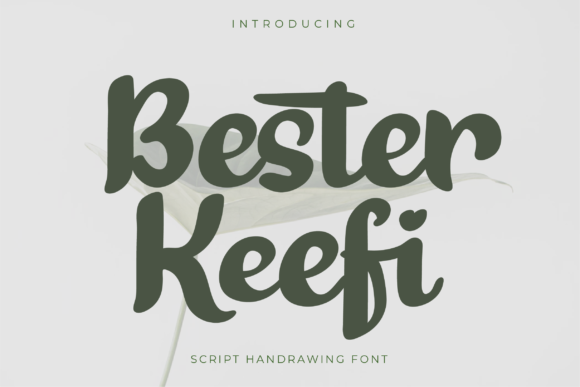
The Bester Keefi Font: A Handwritten Gem for Your DIY Projects
Have you ever been in the middle of a design project, and suddenly, you just can’t seem to find the right font? I recall a particularly frustrating moment when I was working on a client’s wedding invitation suite. The design was beautiful, but I just couldn’t find a font that captured the warmth and personality I wanted to convey. That’s when I stumbled upon the Bester Keefi font, and it completely transformed my design.
My Love Affair with Bester Keefi
The Bester Keefi font results from a stunning pairing of a brush pen and pencil, making it look incredibly endearing and authentic. This gorgeous and unique handwritten font has the power to bring any DIY project to life! Here’s what I love about it:
- ✨ Unique and authentic handwritten feel
- ✅ Perfect for DIY projects, wedding designs, and invitations
- 💕 Endless possibilities with OpenType features and glyphs
- 🎨 Versatile and works well with various design styles
A Few Quirks to Keep in Mind
While I adore the Bester Keefi font, there are a few small quirks to be aware of:
- ⚠️ Some letters may appear a tad inconsistent, which can be charming but also requires attention to detail
- 🤔 Limited kerning options, which might affect text-heavy designs
The Story Behind Bester Keefi
The Bester Keefi font was created with love and care by a talented designer who wanted to capture the essence of handwritten communication. Although the designer’s story is shrouded in mystery, their passion for creating beautiful, authentic fonts shines through in Bester Keefi.
| What makes Bester Keefi unique? | The Bester Keefi font is unique due to its stunning pairing of a brush pen and pencil, giving it an authentic and endearing feel. |
| Is Bester Keefi suitable for body text? | While Bester Keefi is beautiful, it’s best suited for headings and titles. For body text, consider using a more traditional font for readability. |